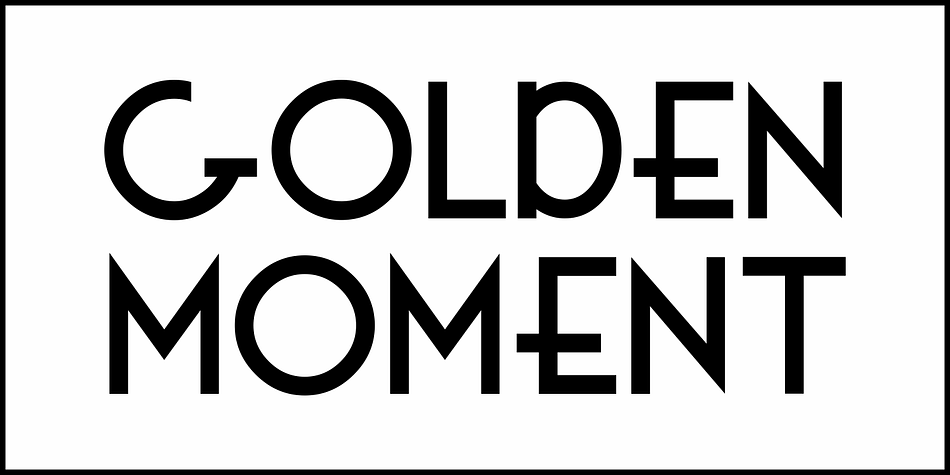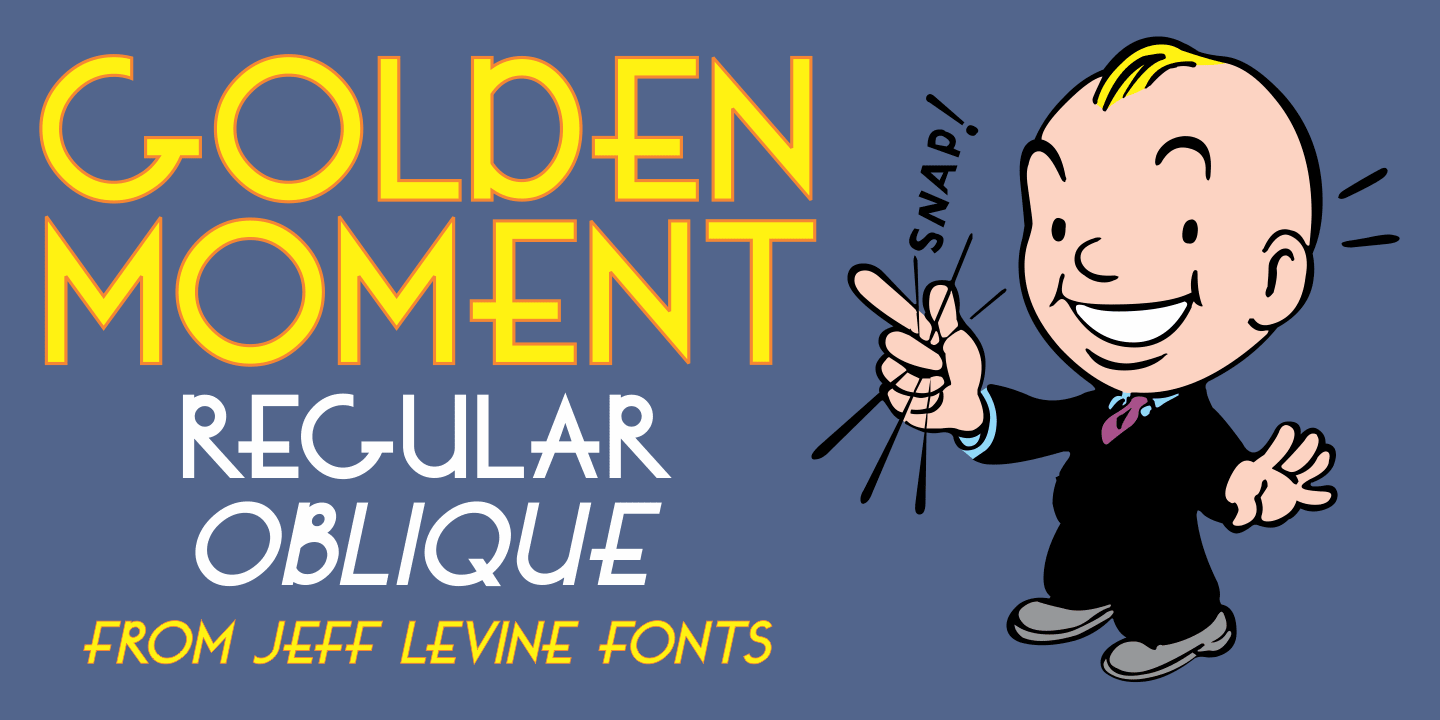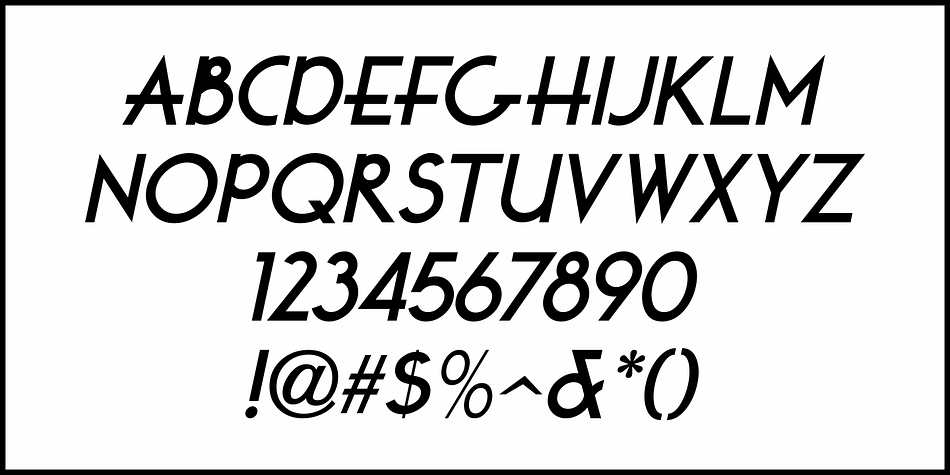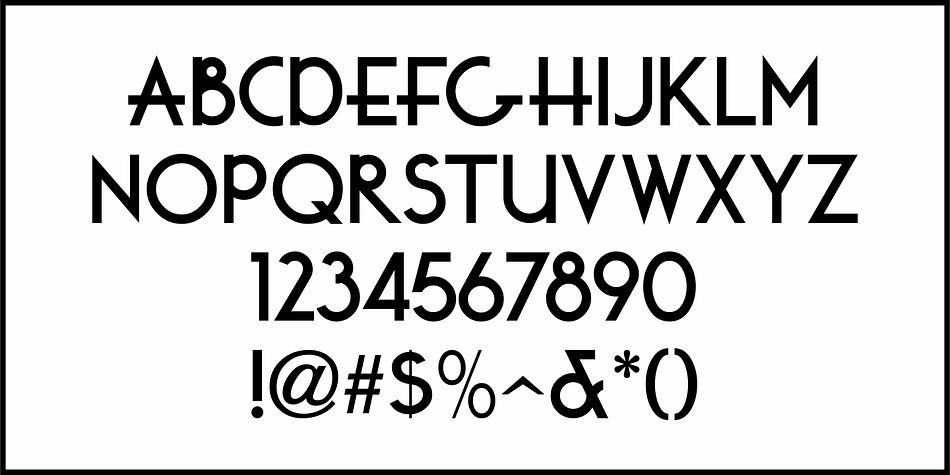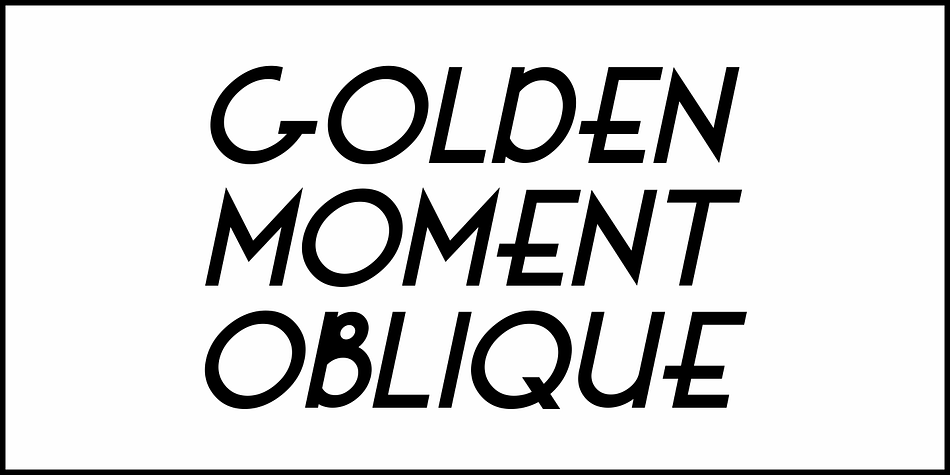
GOLDEN MOMENT JNL
Designed by Jeff Levine, Golden Moment JNL is an art deco font family. This typeface has two styles and was published by Jeff Levine Fonts.
The hand lettered cast credits for the 1939 film “Golden Boy” (starring Barbara Stanwyck, Adolphe Menjou, William Holden and Lee J. Cobb) was the model for Golden Moment JNL, which is available in both regular and oblique versions.